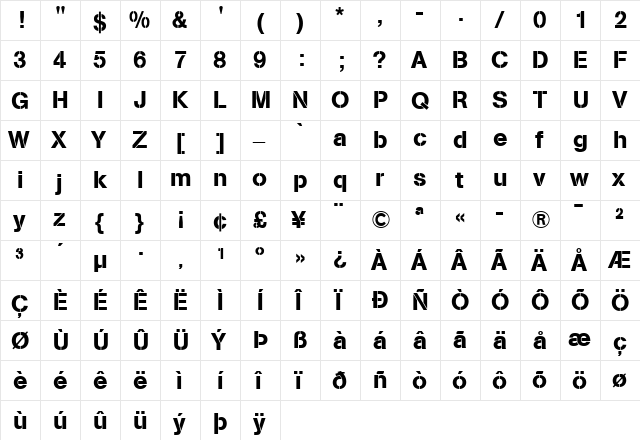
AG Book Stencil Medium
Design Context for AG Book Stencil Typeface
AG Book Stencil borrows the utilitarian aesthetic of stencil lettering, with its characteristic cutaways and no-frills construction lending an industrial edge.
Ideal for industrial branding, streetwear, military-adjacent aesthetics, and urban signage projects.
Pro Tip: Pair AG Book Stencil with raw, utilitarian design elements — exposed concrete textures, flat colour, and minimal ornamentation suit it well.